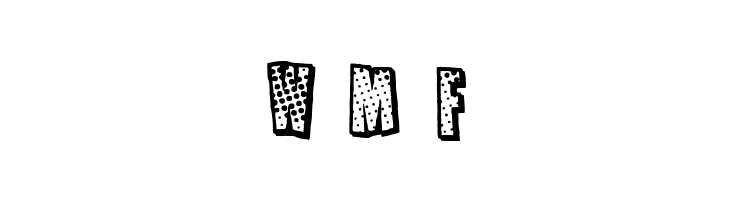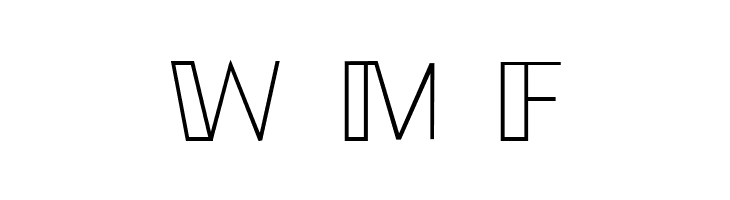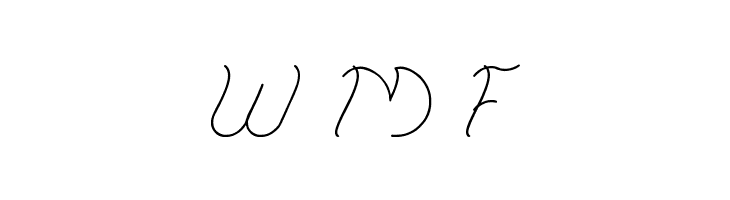
French Fries Bold Font
weknow - Wino S Kadir - www.creativefabrica.com/designer/weknow/
A playful script font with smooth, connected letters and a casual, friendly style.
French fries Font
An elegant, flowing script font with thin, graceful lines.
Besign Font
A rugged, distressed font with a textured, worn-out look.
Jaggy Fries Font
A playful, jagged, hand-drawn font with bold, irregular characters.
Friesian Font
A geometric and modern font with clean lines and open counters.
French_Fries Font
Font by Geronimo
A bold, playful font with rounded, outlined characters and a cartoonish style.
Chunky Fries DEMO Regular Font
Font by Pizzadude
A bold, playful font with thick, rounded strokes and a whimsical style.
French Fries Apocalypse Font
28fonts.tumblr.com
A bold, playful font with a dotted texture and cartoonish style.